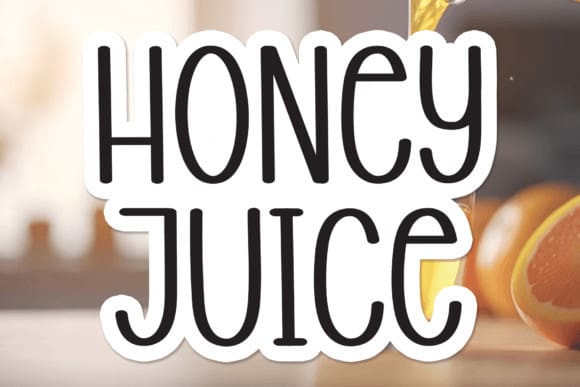
Honey Juice Font
Honey Juice Font is a flowing handwritten font, described by a casual touch, perfect for your favorite projects. Fall in love with its incredibly distinct and timeless style and use it to create spectacular designs!